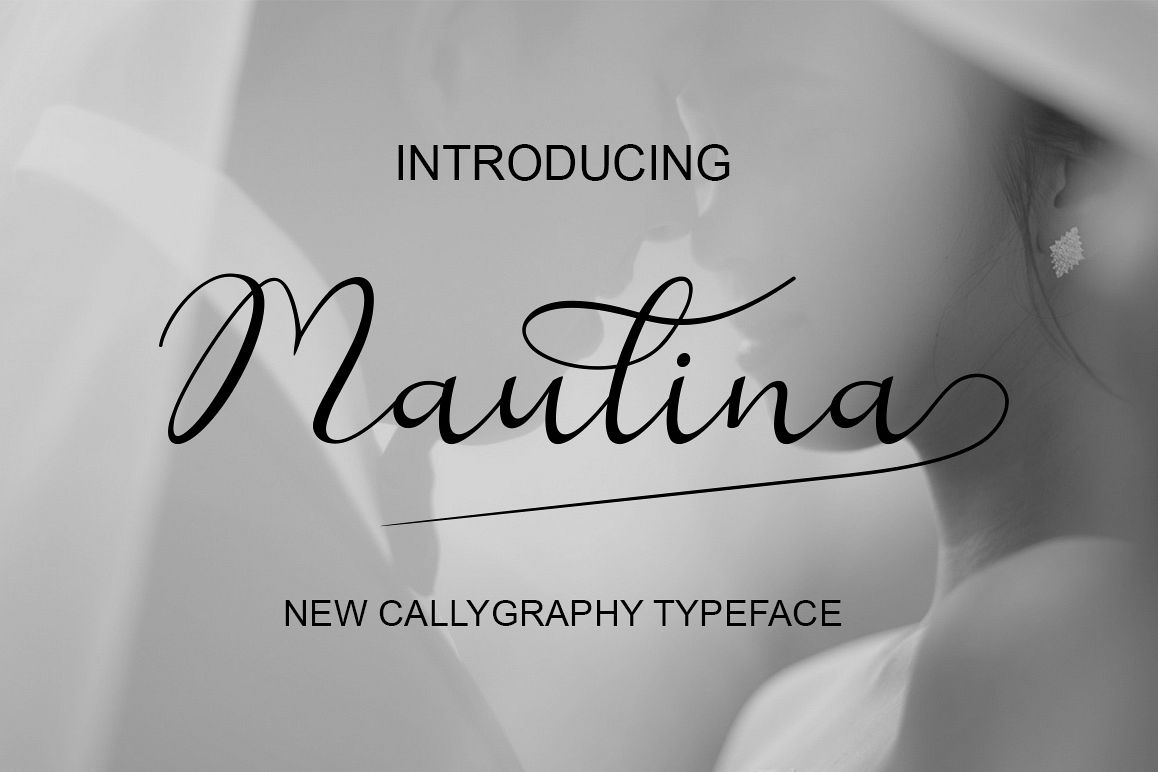
Maulina
Reula maulina Script
Reula maulina Script New fresh & modern style with handmade calligraphy, decorative characters and dancing lineage! So wonderful are invitations like greeting cards, branding material, business cards, quotes, posters, and more !!
Reula maulina Script The comes with 608 glyphs. Alternate characters are divided into several Open Type features such as Swash, Stylistic Sets, Stylistic Alternate, Contextual Alternate. Open Type features are accessible by using Open Type savvy programs such as Adobe Illustrator, Adobe InDesign, Adobe Photoshop Corel Draw X versions, and Microsoft Word. And this font has code PUA unicode (font with special code). So that all alternative characters can be easily accessed by craftsmen or designers.
Reula maulina Script
Uppercase & lowercase International signature & symbol Punctuation Support & PUA number Unicode Style Style Alternative Style Style Range 1-17 Contextual Character Variations.